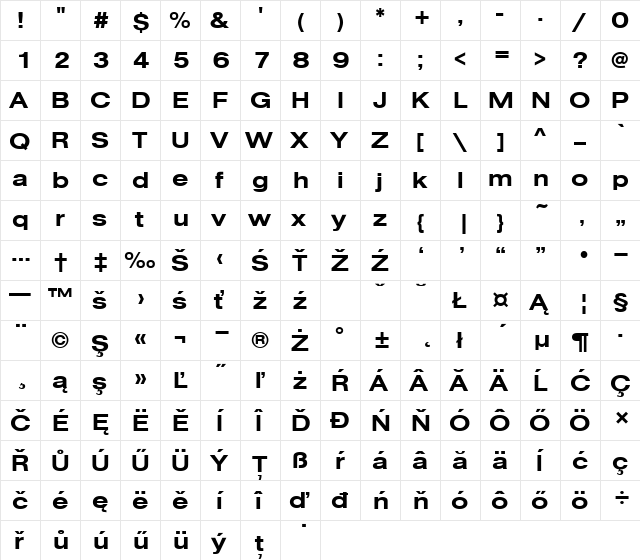
NimbuSanDEEExt Bold Font Preview
NimbuSanDEEExt Bold
Design Context for NimbuSanDEEExt Typeface
NimbuSanDEEExt is a composed and adaptable typeface that performs quietly and consistently across a wide range of design contexts. Its bold stroke weight gives it real presence on the page.